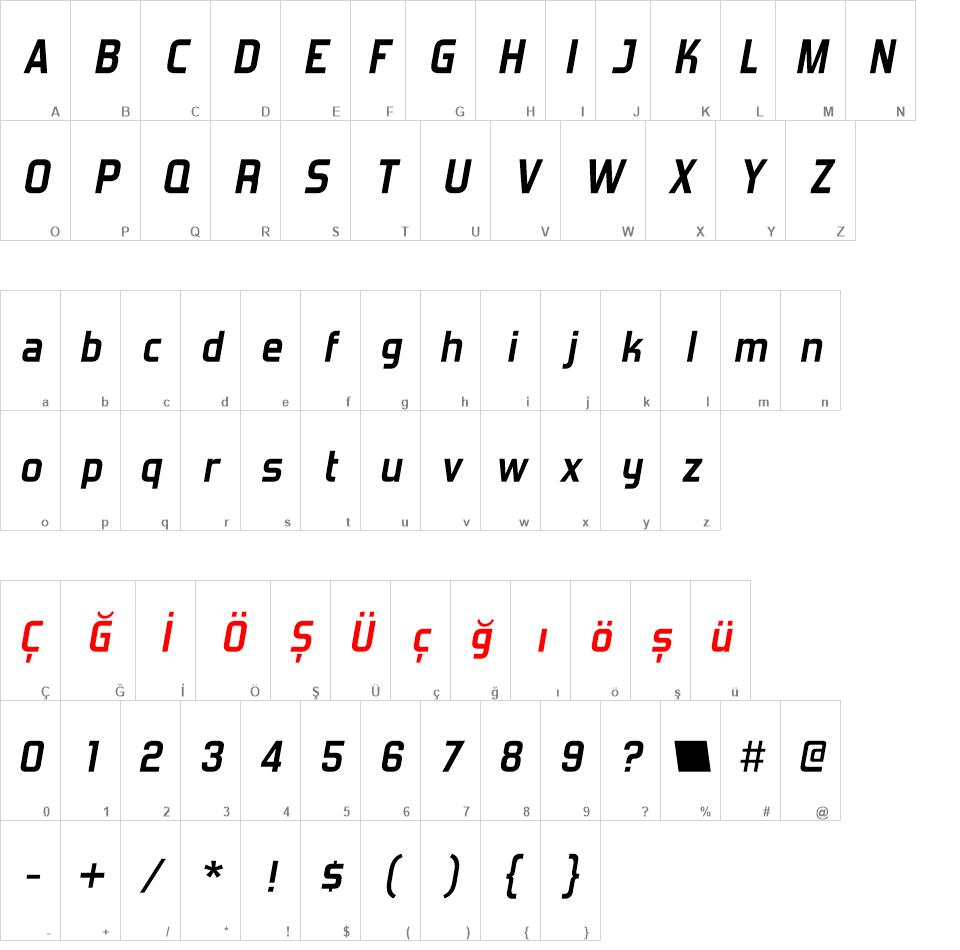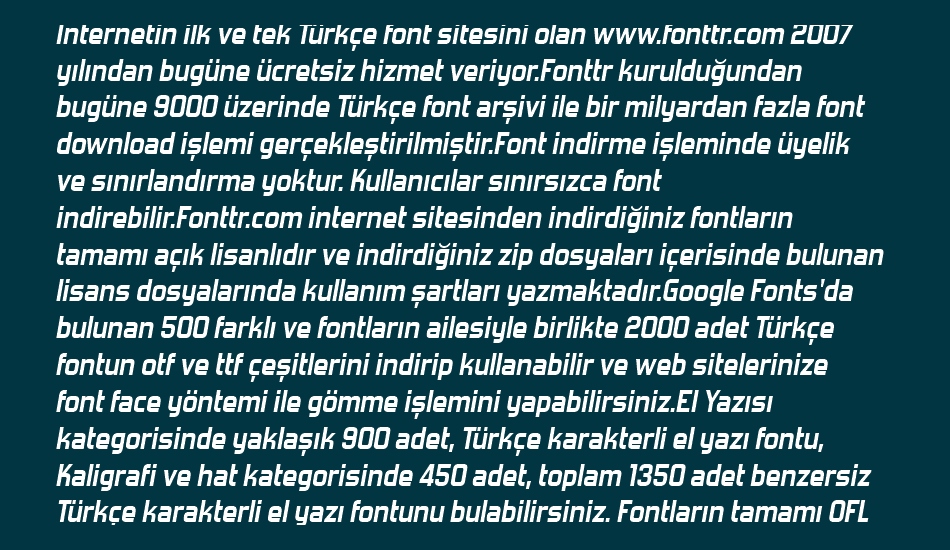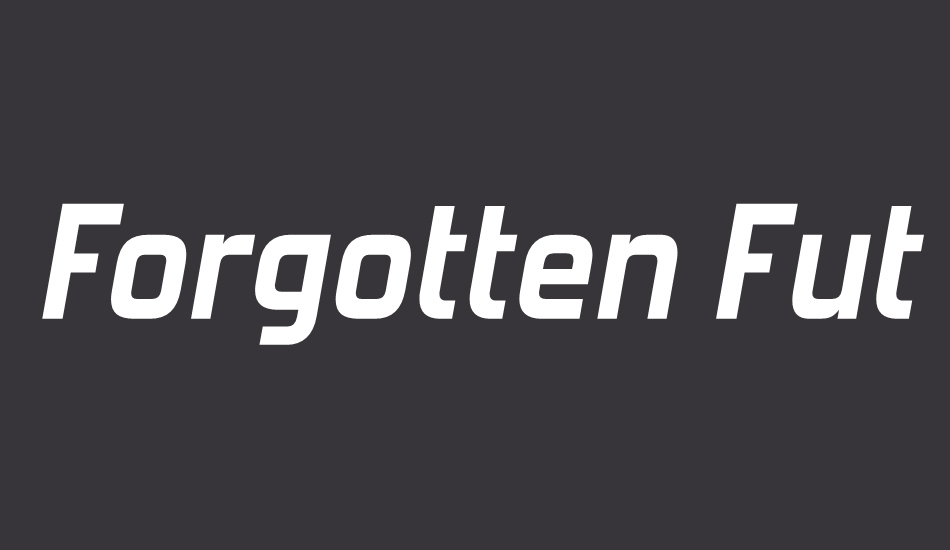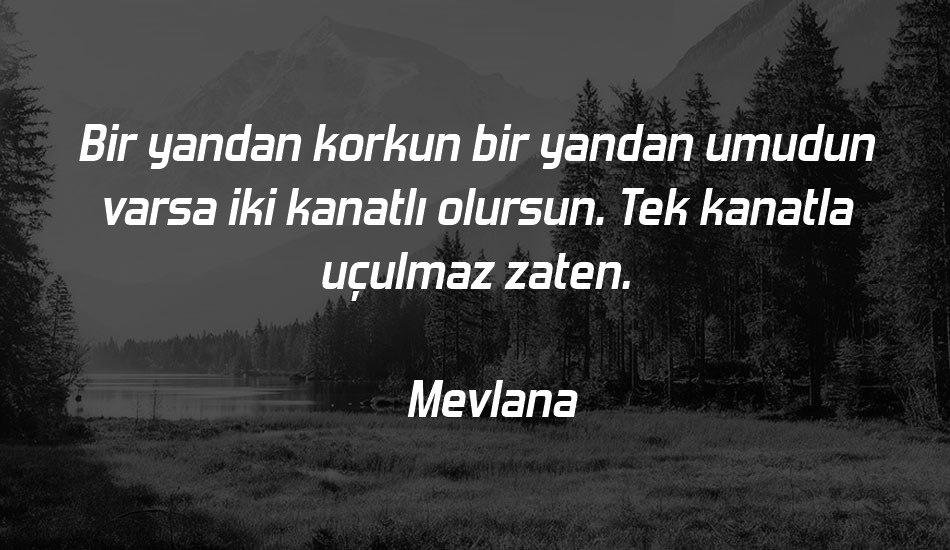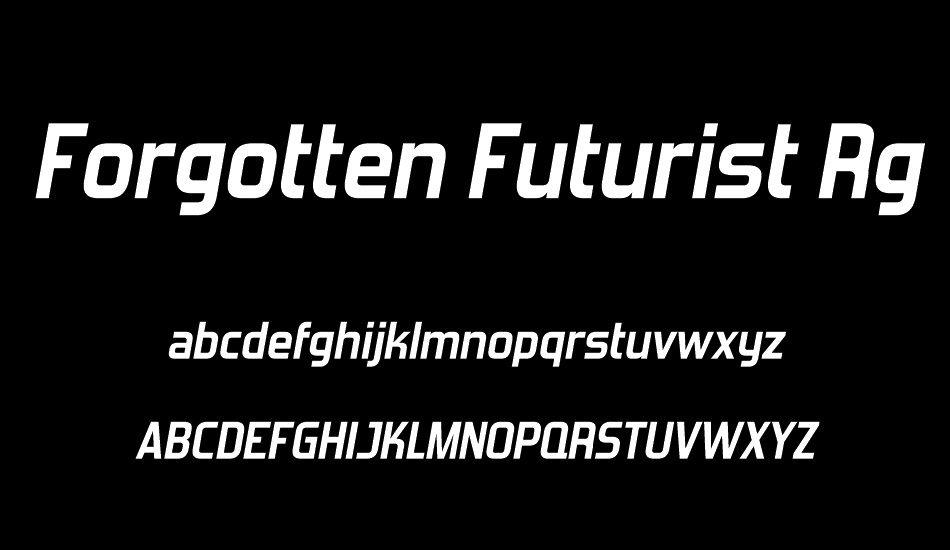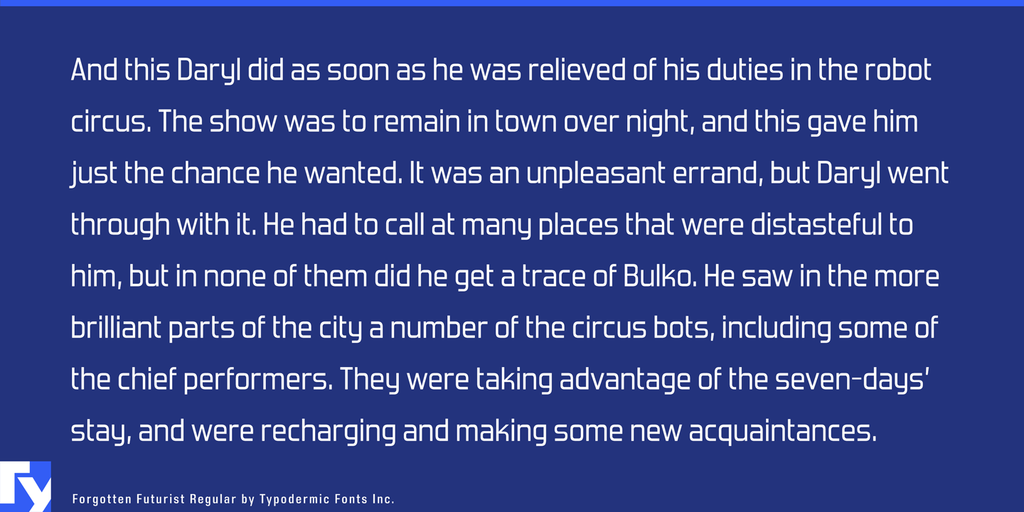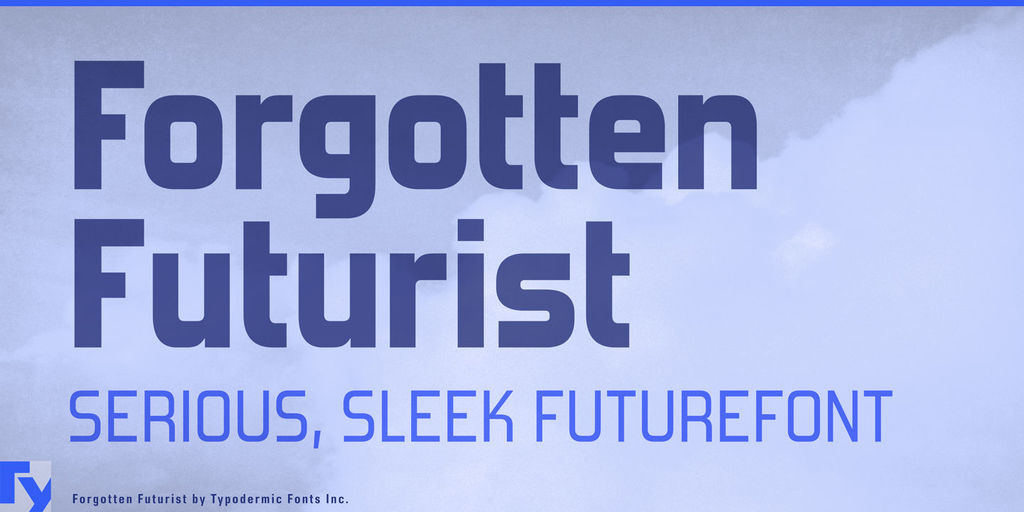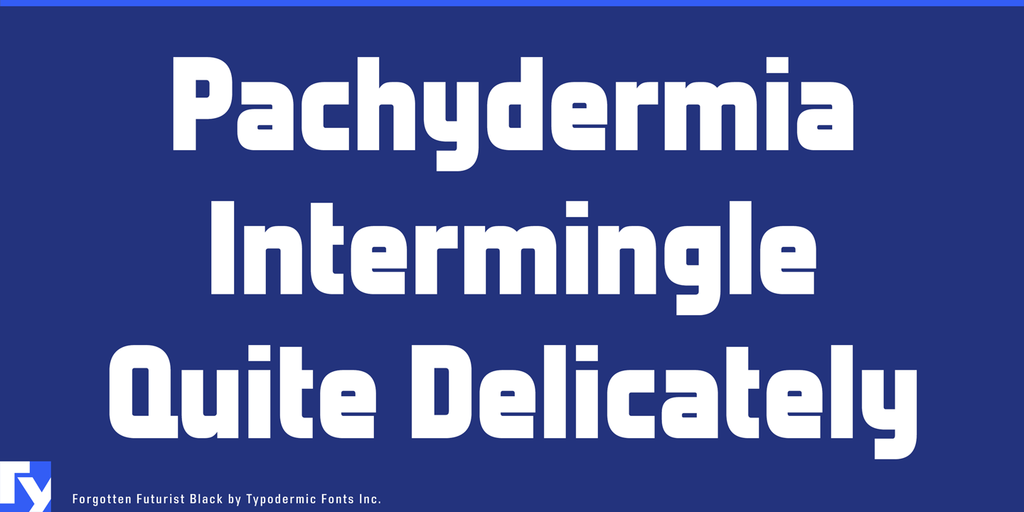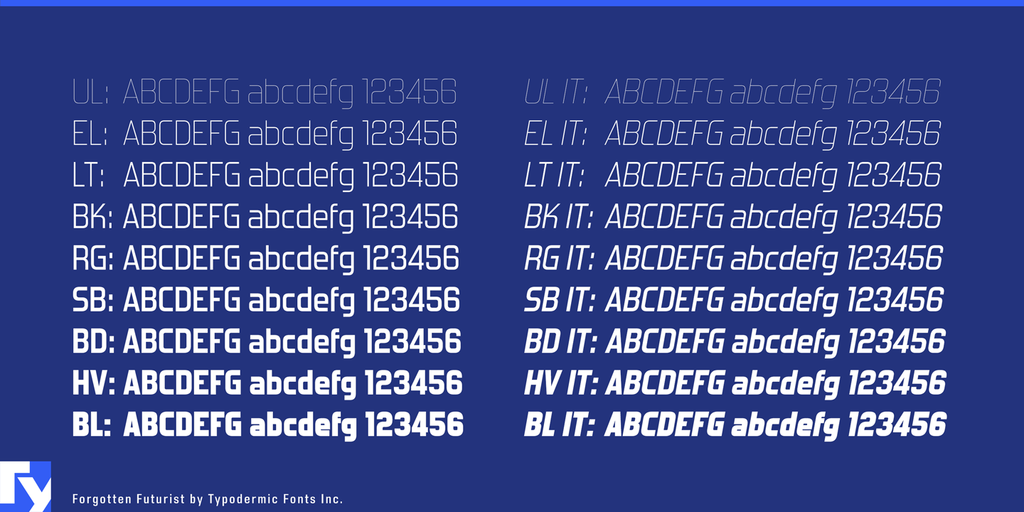
Forgotten Futurist font
Forgotten Futurist
Forgotten Futurist is a serious, sleek futurefont. The letterforms were derived from 1960s American car advertising but with a 1940s industrial twist.